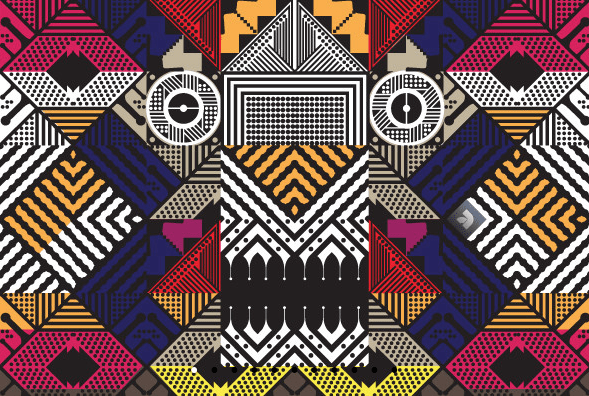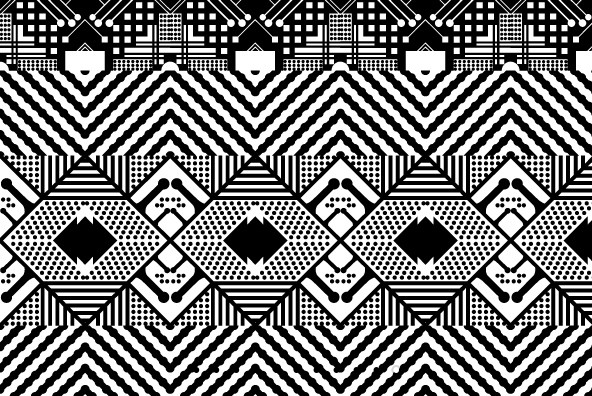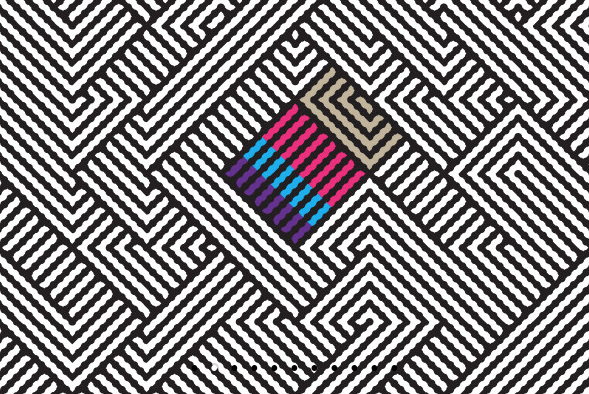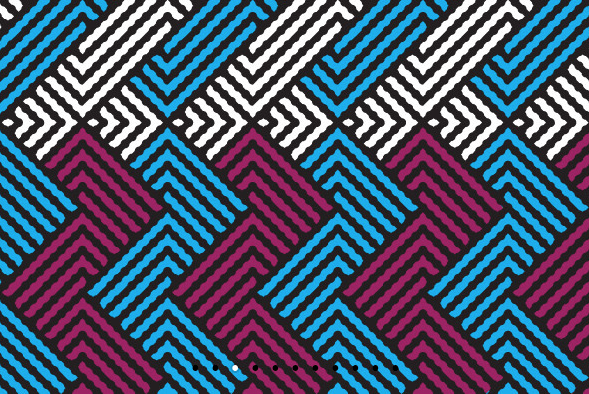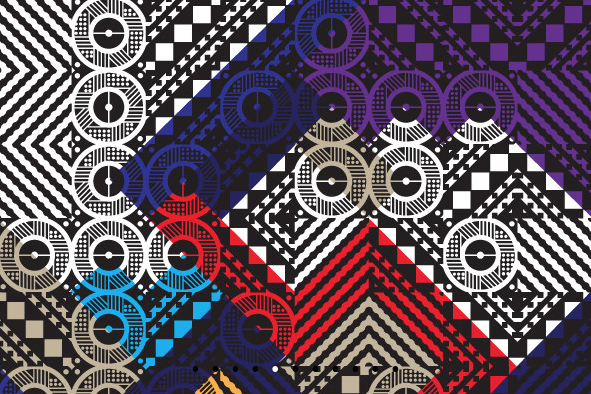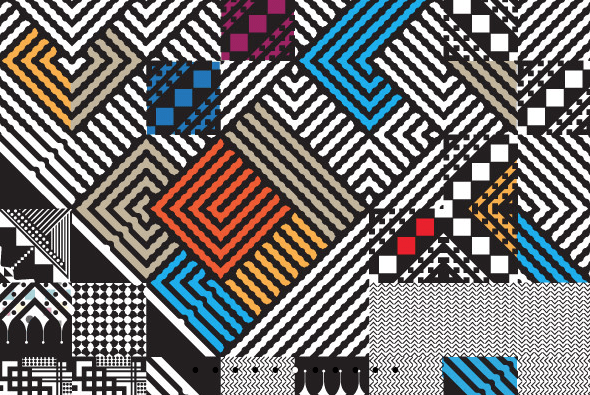
YWFT Array
About YWFT Array
YWFT Array is a beautifully-drawn icon font of stylish geometric illustrations, with an eclectic, art deco vibe. With its bisected circles and the bold, linear symmetry of its triangular border corners, YWFT Array is invaluable when creating a type specimen…